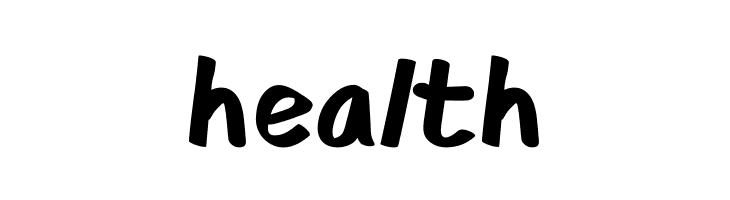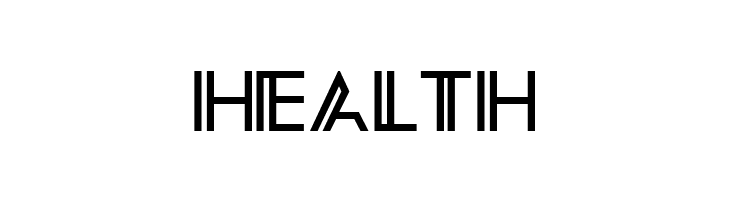
A modern, geometric font with sharp, angular lines and a futuristic style.
A geometric, Art Deco-inspired font with elegant, elongated forms.
A sleek, art deco-inspired font with tall, narrow letterforms and subtle curves.
A playful, hand-drawn font with bold, irregular strokes and a casual vibe.
An elegant, flowing script font with a classic calligraphic style.
A bold blackletter font with sharp, angular lines and a dramatic presence.
A bold, gothic-inspired font with sharp, angular edges and a strong presence.
A flowing, cursive script font with elegant, interconnected strokes.
An artistic and whimsical font with elongated, flowing letterforms.
A bold, flowing script font with high contrast and elegant curves.